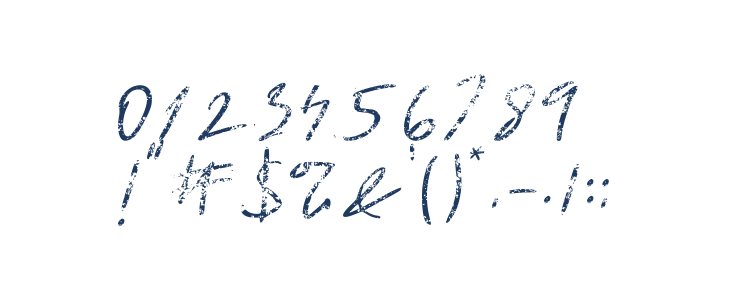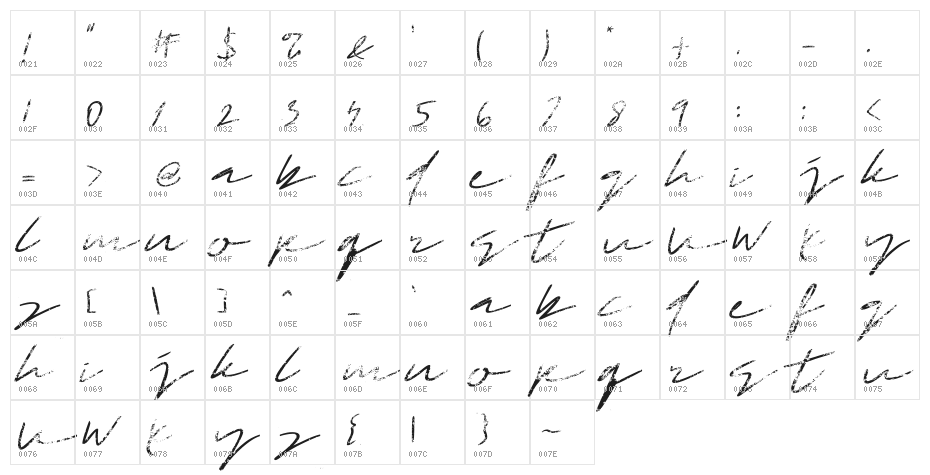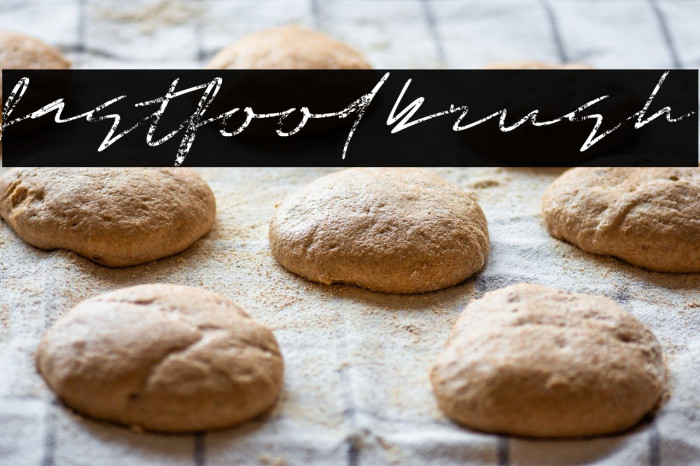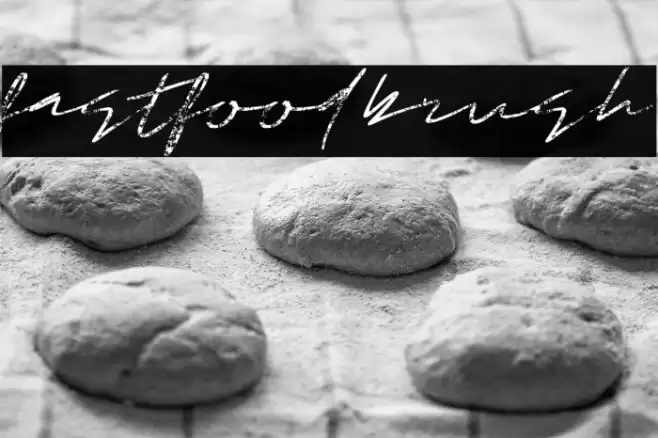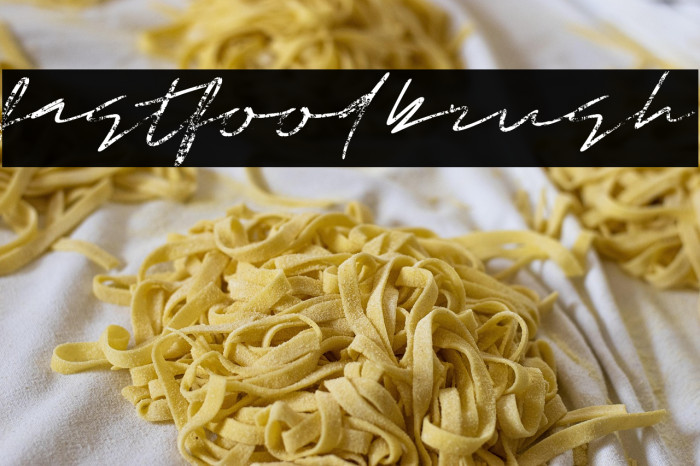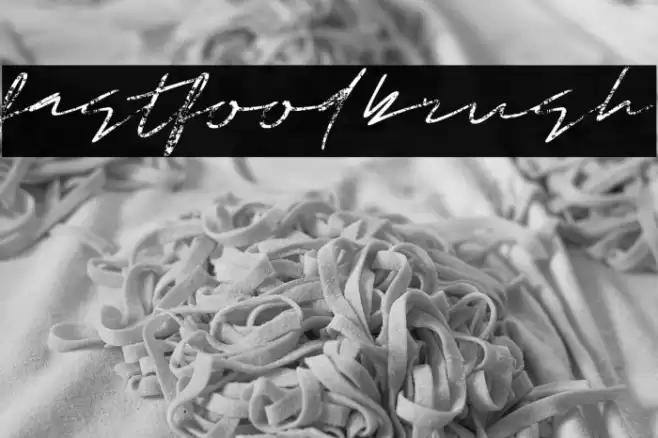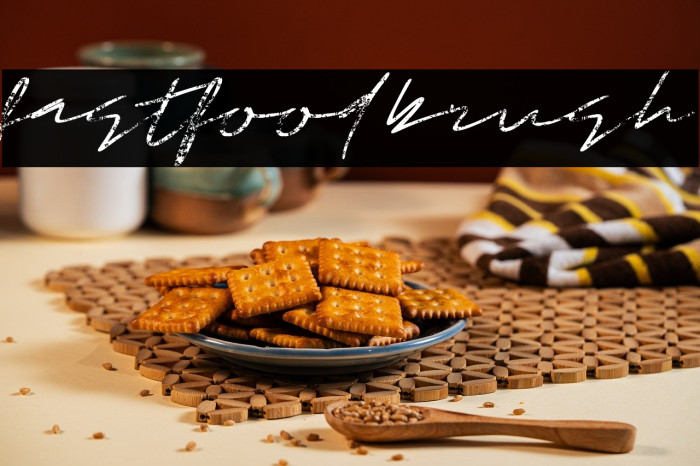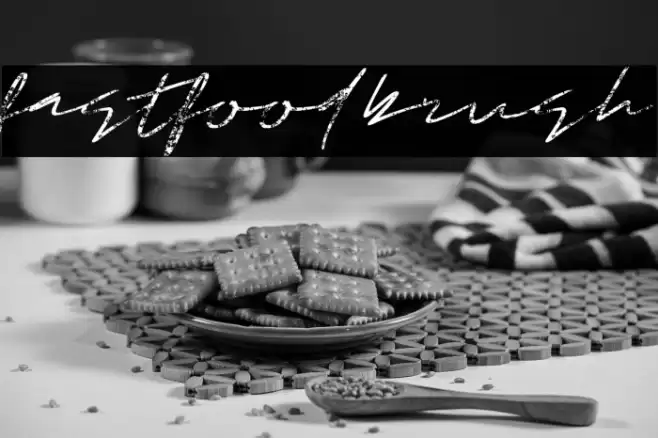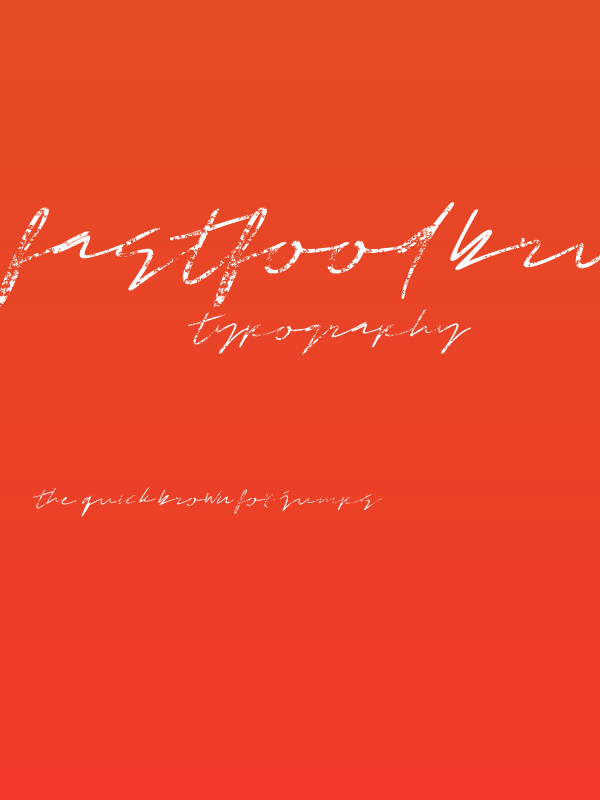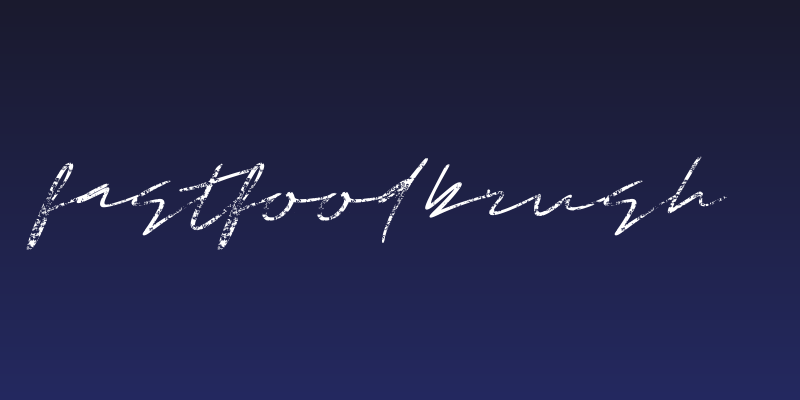
Fastfood Brush Font
Fastfood Brush Description
This font features a dynamic and energetic brush script style, characterized by its fluid and expressive strokes. The letters have a hand-drawn appearance, with varying thickness that adds a sense of movement and spontaneity. The texture is slightly rough, giving it an authentic, artistic feel. The uppercase and lowercase letters flow seamlessly, maintaining a consistent rhythm throughout. Numbers and special characters are designed with the same brush-like quality, ensuring uniformity across all elements. This font is ideal for projects that require a personal, creative touch.
| Use Case | Logos, Posters, Branding |
| Proposed Projects | Ideal for branding, packaging, posters, and creative projects that need a personal, artistic touch. |